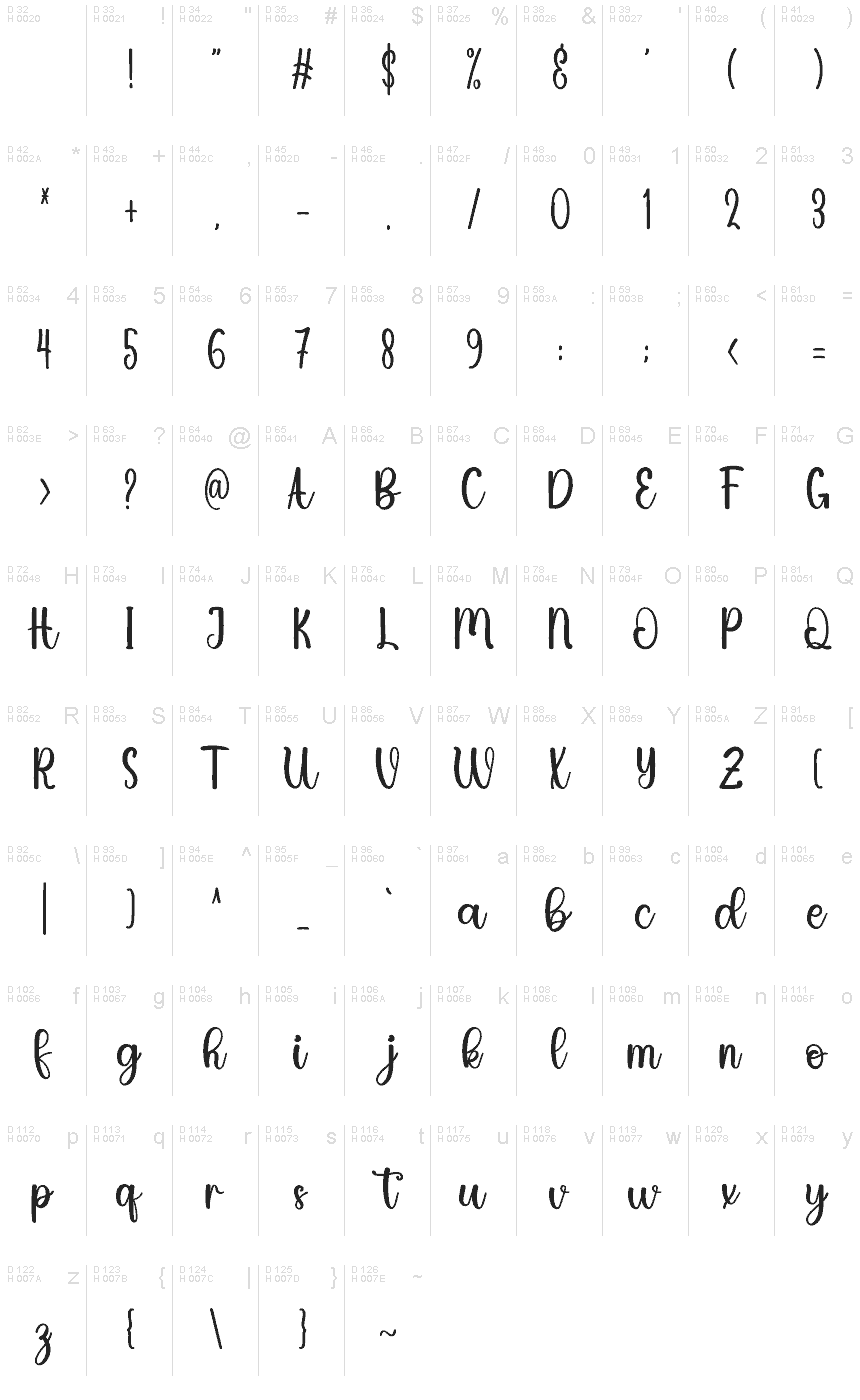
Autumn Smile
Autumn Smile font designed by PiPi Creative is an elegant and flowing handwritten font with ornamental elements. Its casual yet whimsical appearance gives it a modern script look which is great for when you need to decorate any kind of surface or branding item.